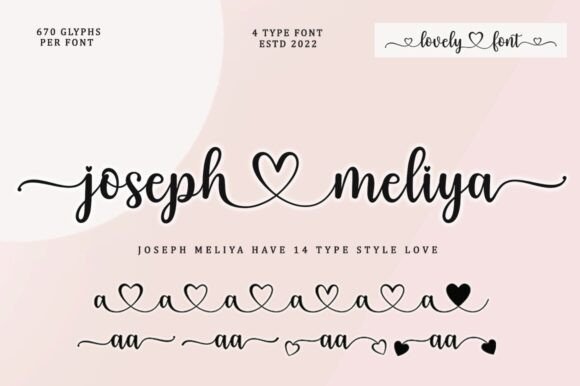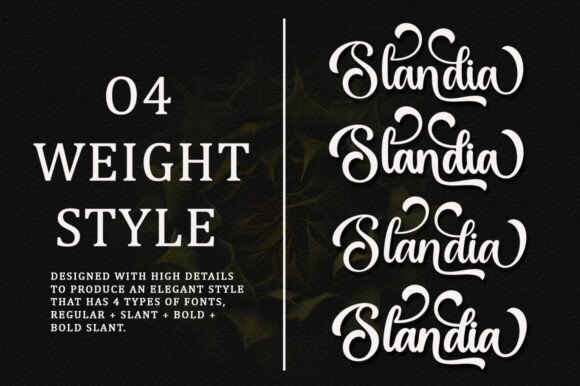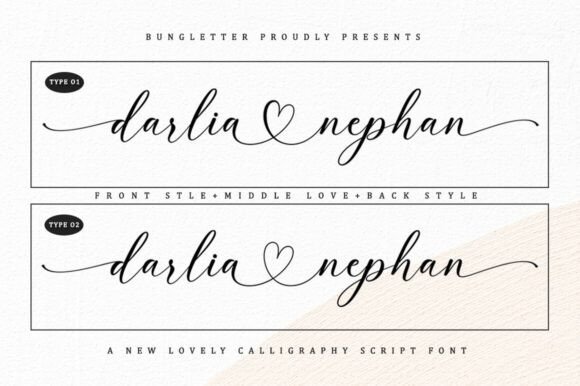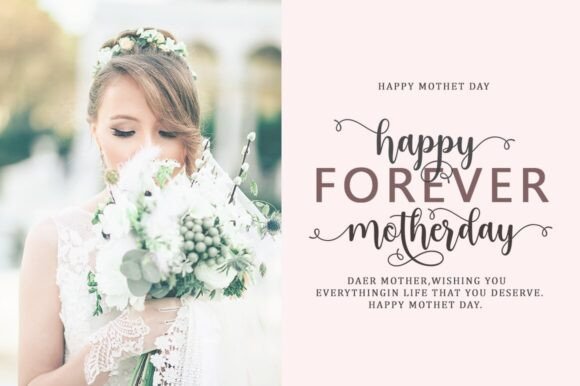
Best Script Collection Font
This is your chance to get all my fonts with 45 font files. This bundle includes a variety of font styles such as calligraphy, signature, brush lettering, handwriting, and more. with hundreds of glyphs, including alternates, strings, slashes, and international language support.
This pack is perfect for greeting cards, branding, business cards, quotes, posters, stickers, blogs, logos, weddings, signs, packaging, birth announcements, photo overlays, wall art, quotes, printed materials, bags, t-shirts, and more. . . . !